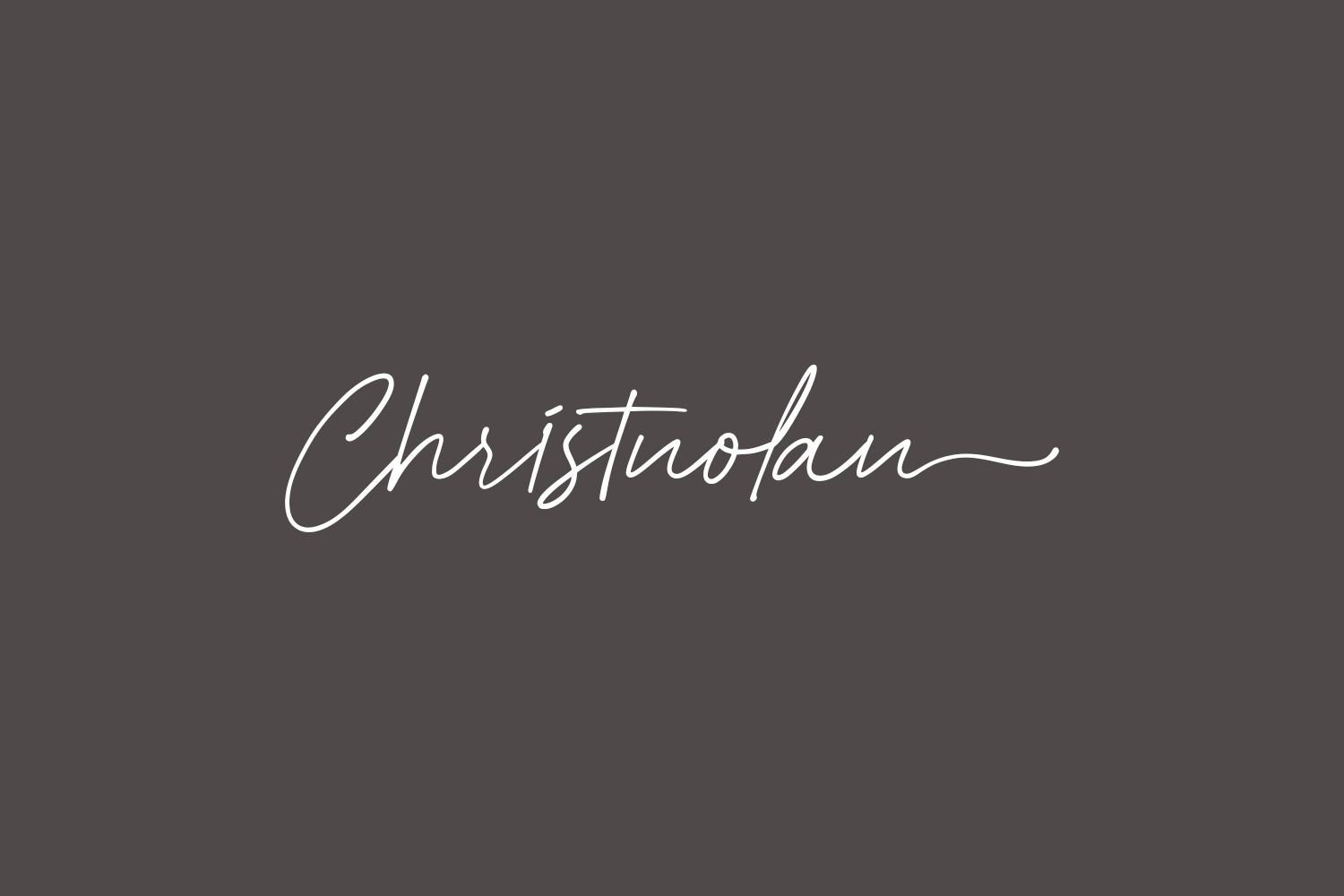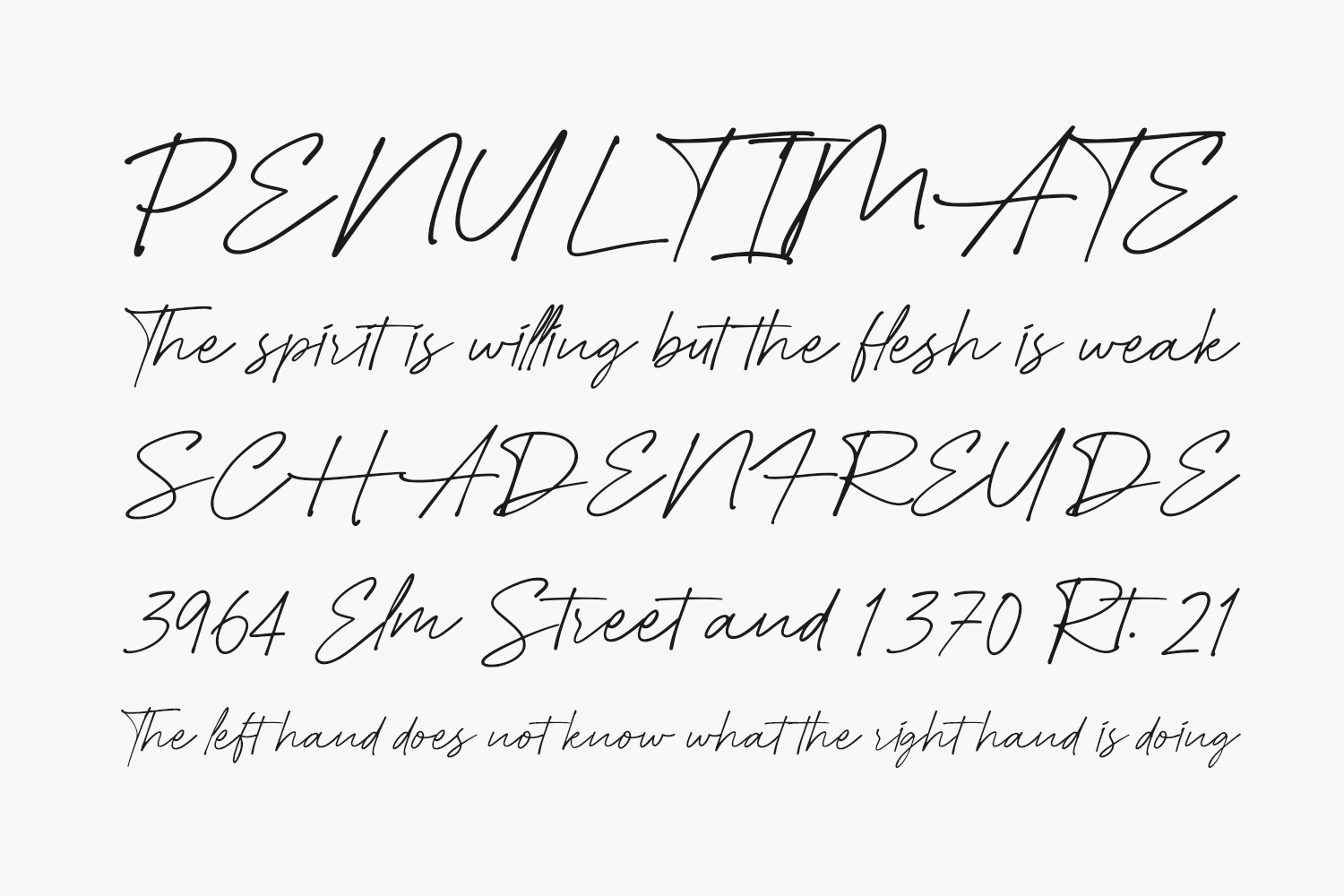
Christnolan Free Font is a chic, refined script font that emanates sophistication and elegance. Its stylish alternates and ligatures make this font the perfect match for any project. Christnolan Free Font was designed by Allouse Studio and is free for personal use only. Please purchase the full version for commercial use.